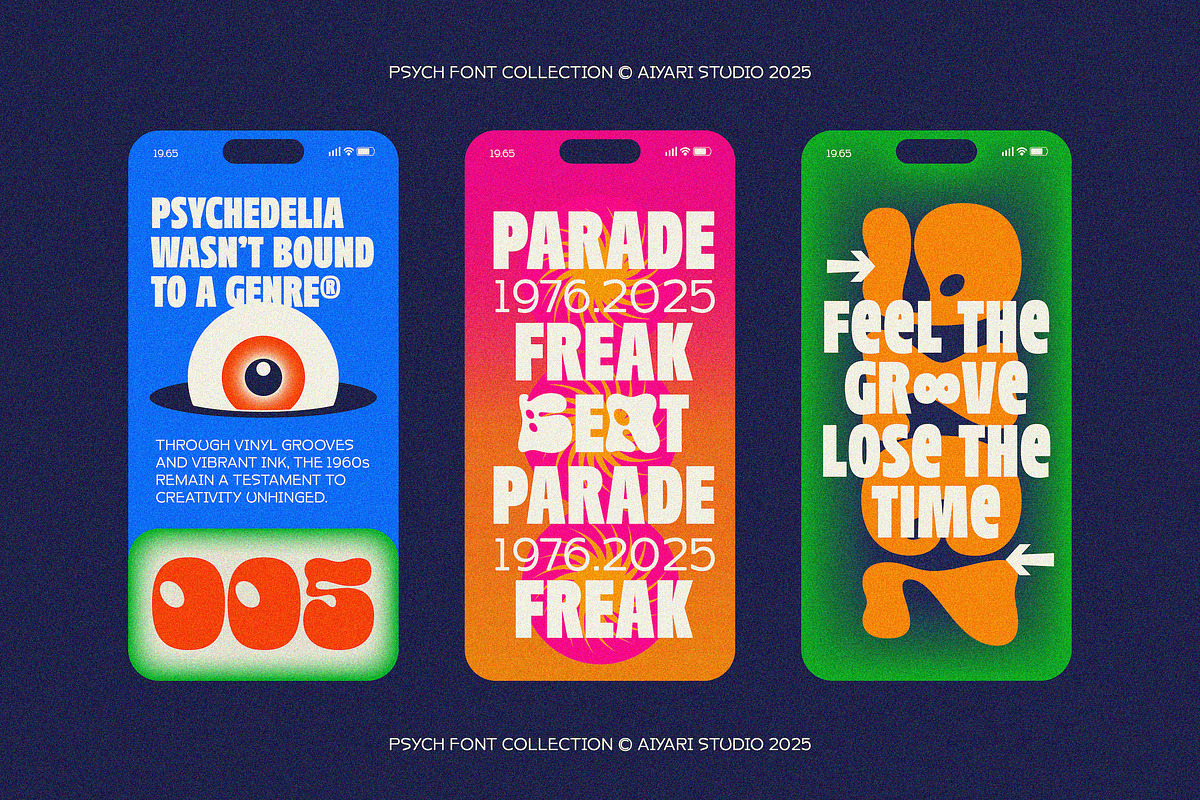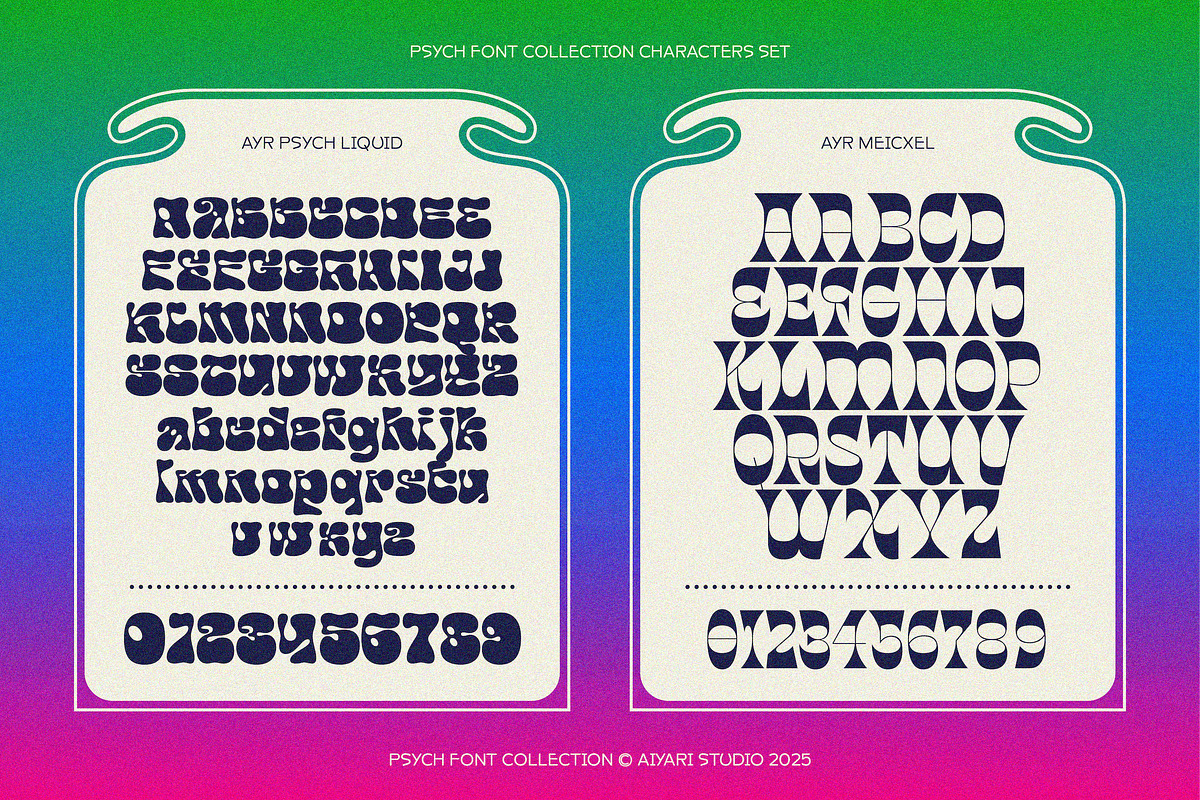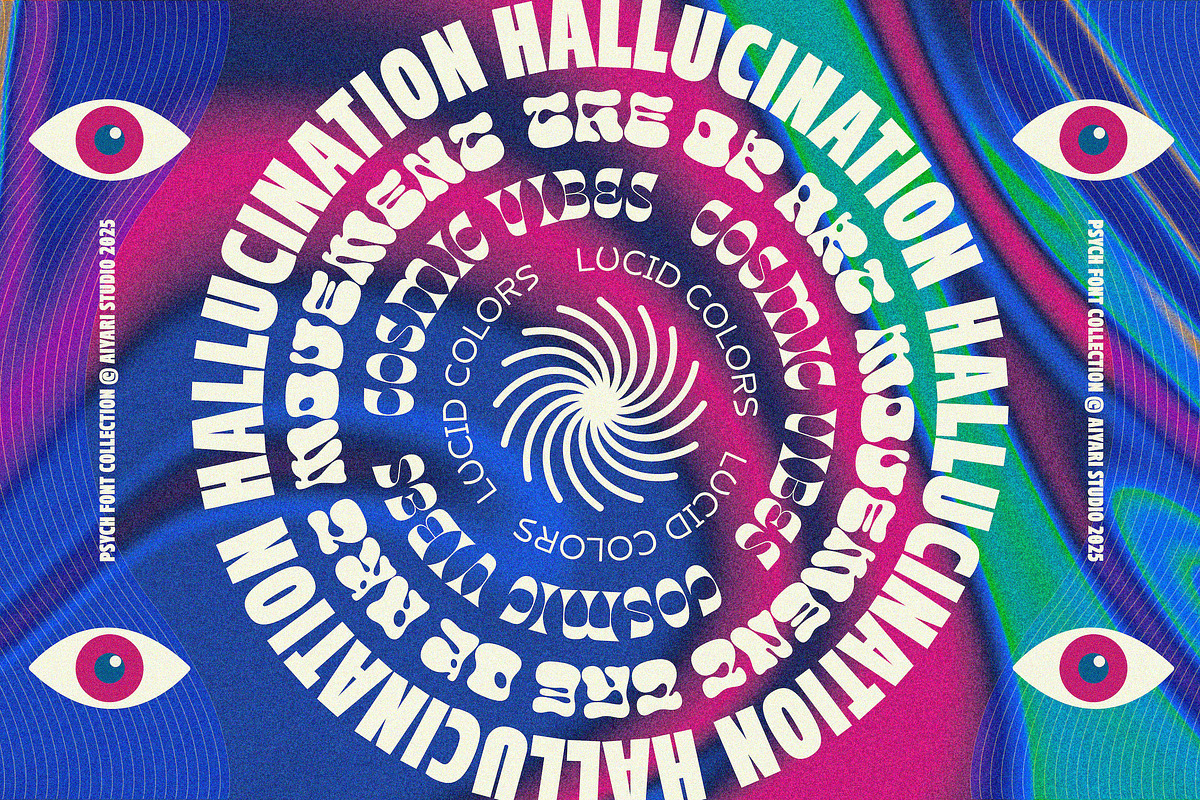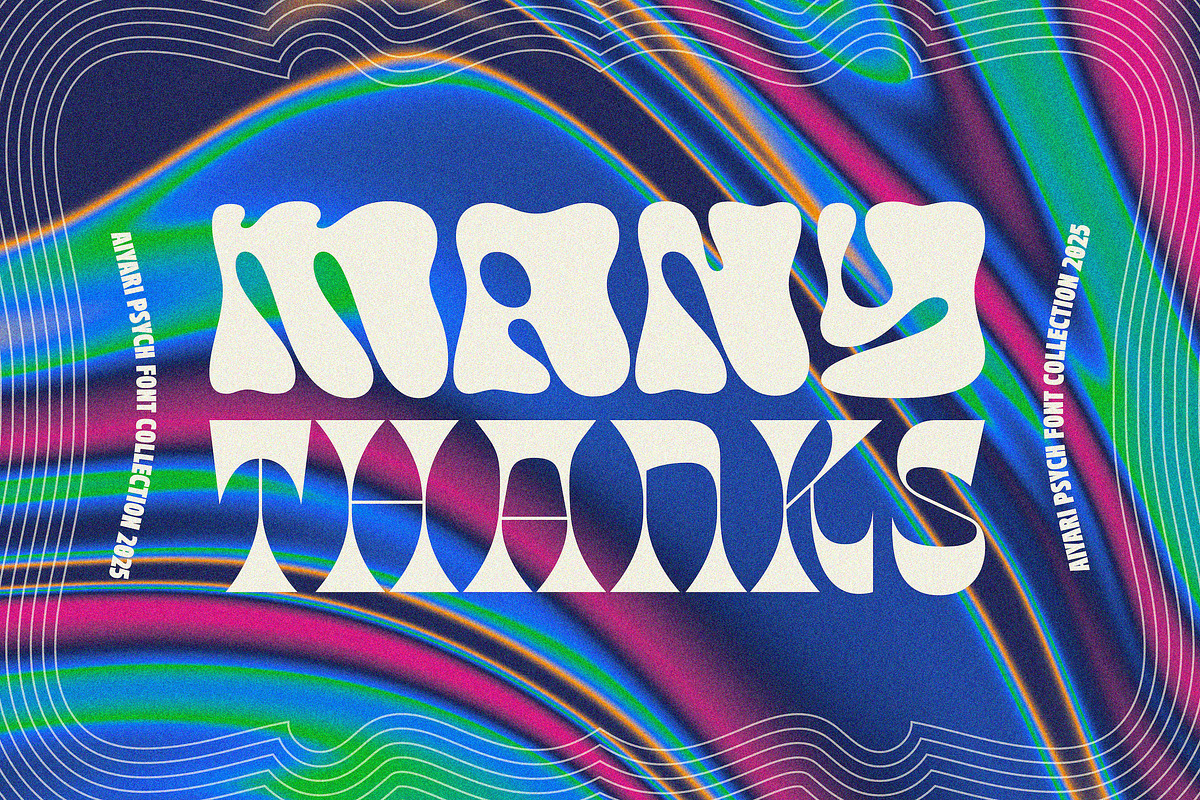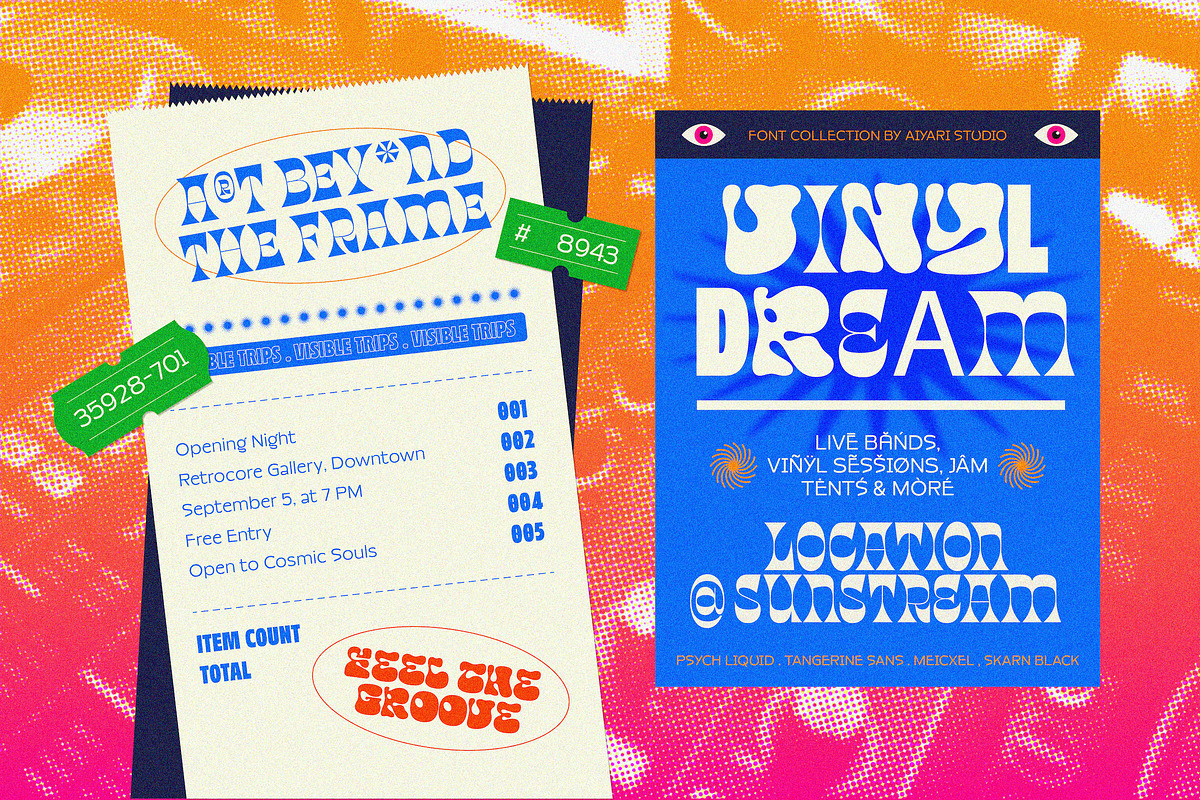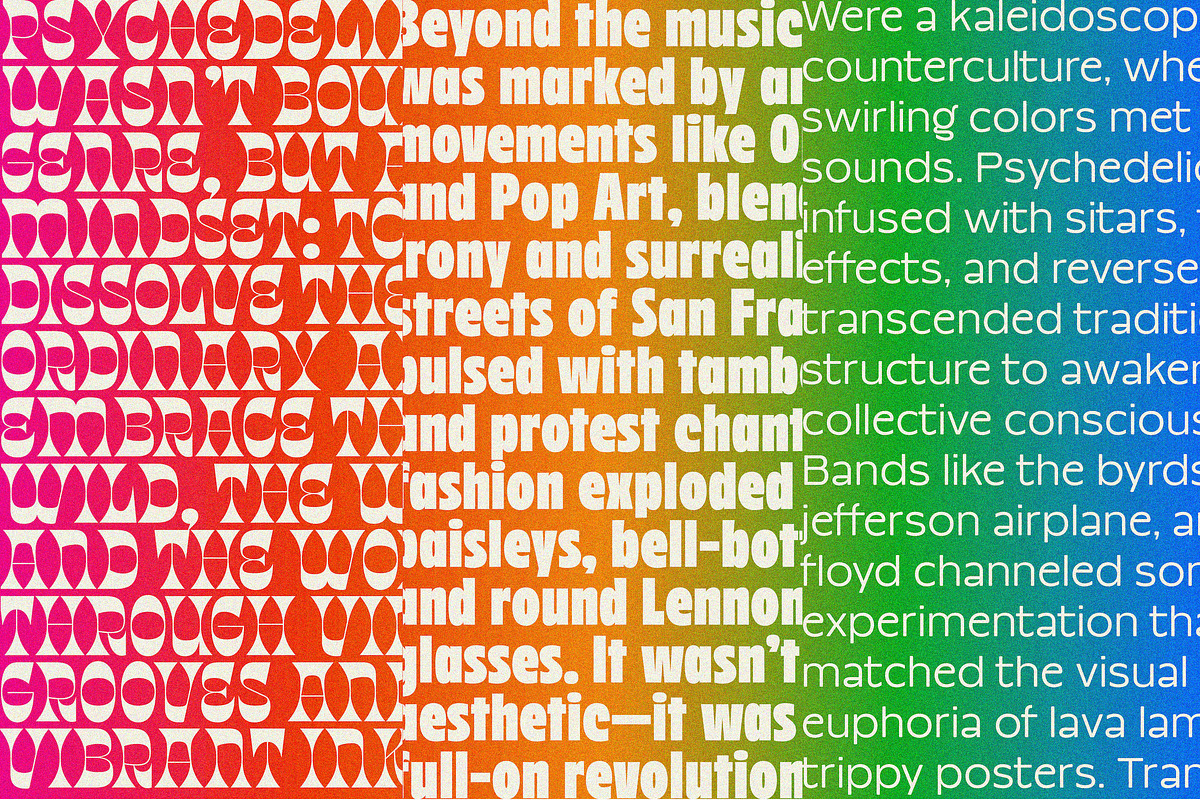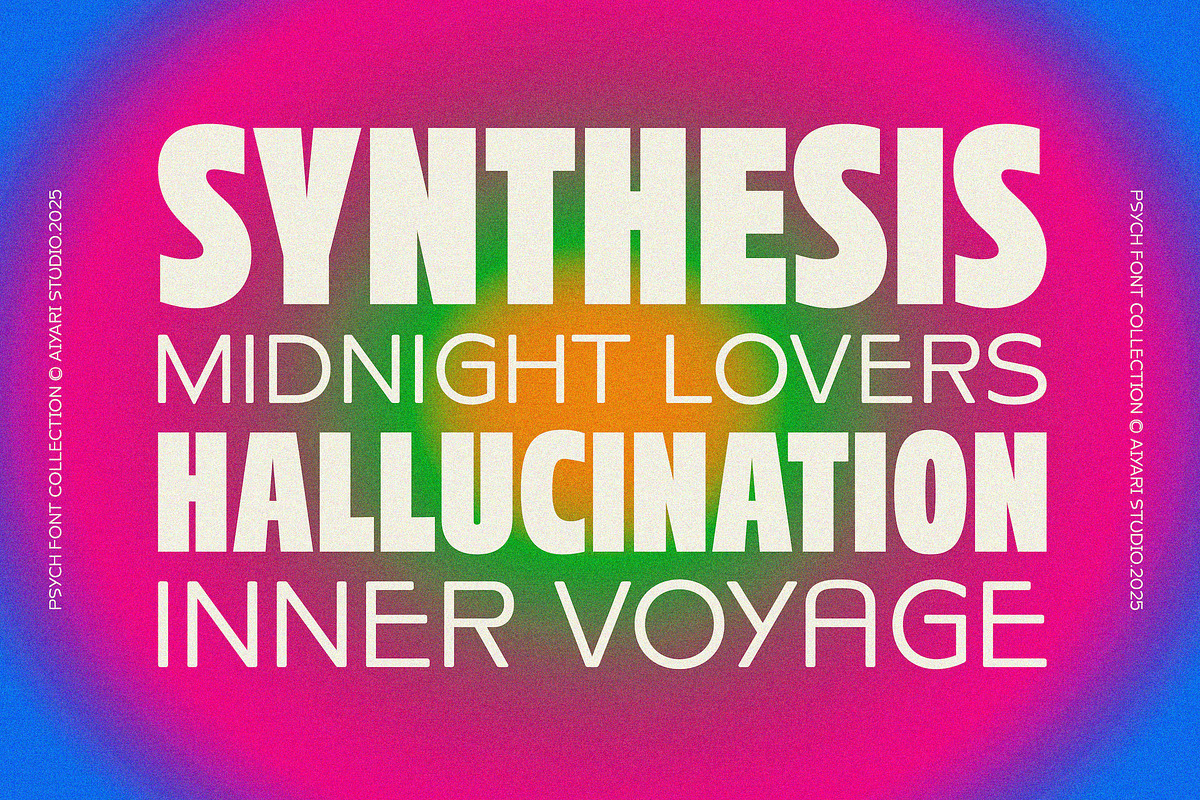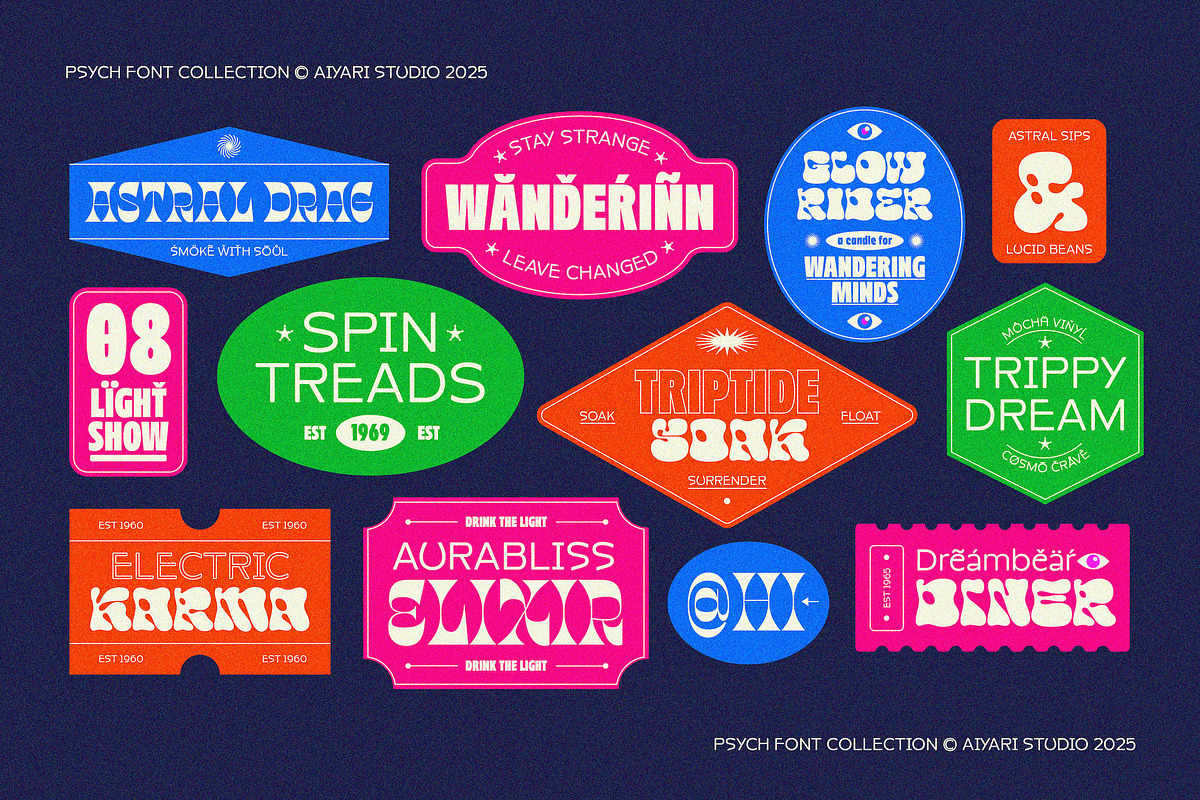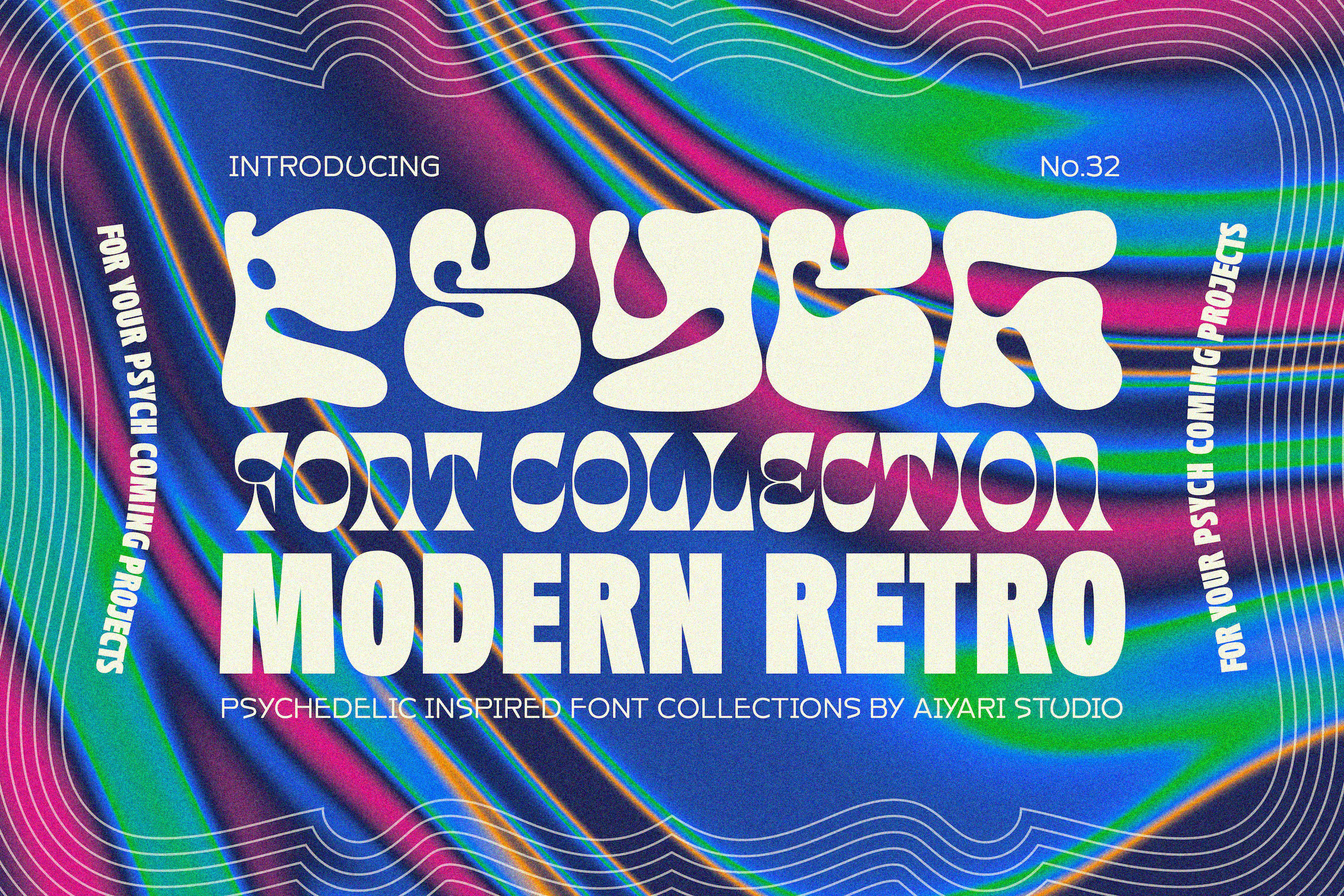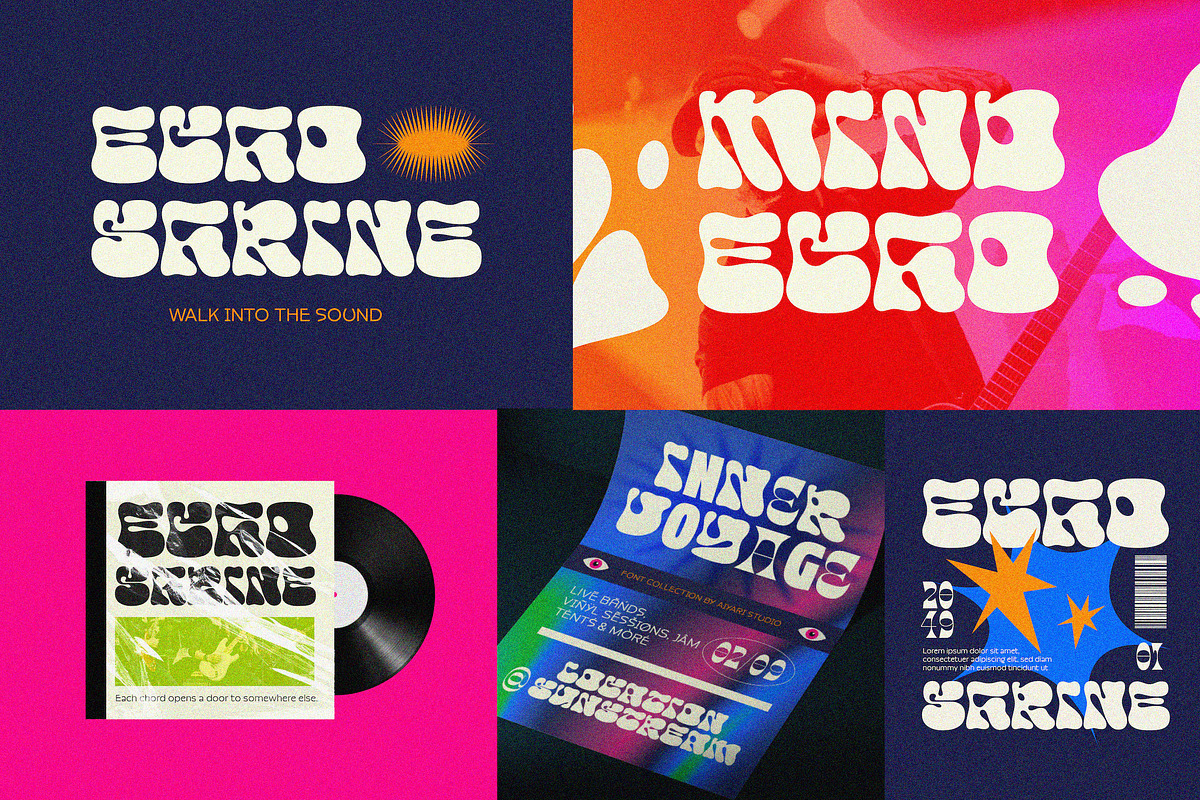
Psych Font Collections
Psych font collections a curated set of four display typefaces exploring the expressive spirit of psychedelic design through contemporary forms. Each font in the collection offers distinct letterform treatments. From fluid and blobby to sharp and ornamental crafted to push psychedelic typographic boundaries.
The psych font collections best used for expressive branding, editorial layouts, poster art, album covers, cultural event visuals, and a nostalgic modern blend for both print and digital storytelling.